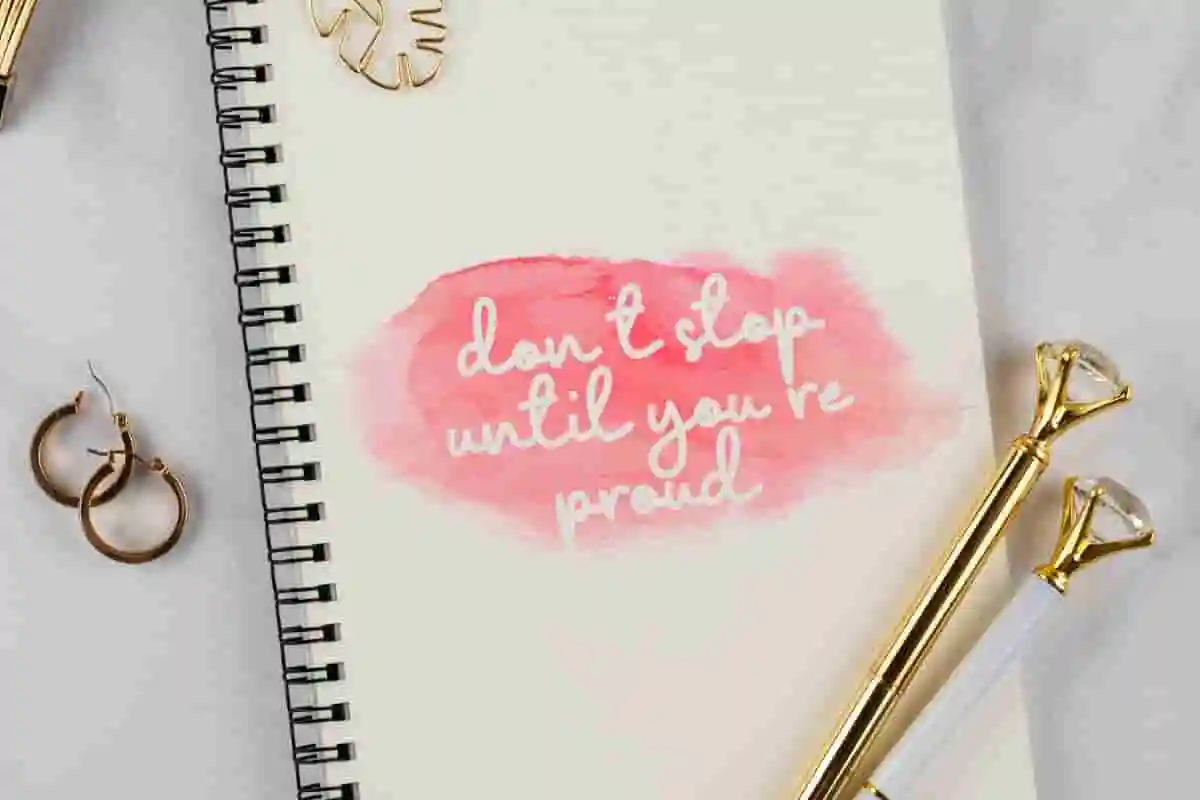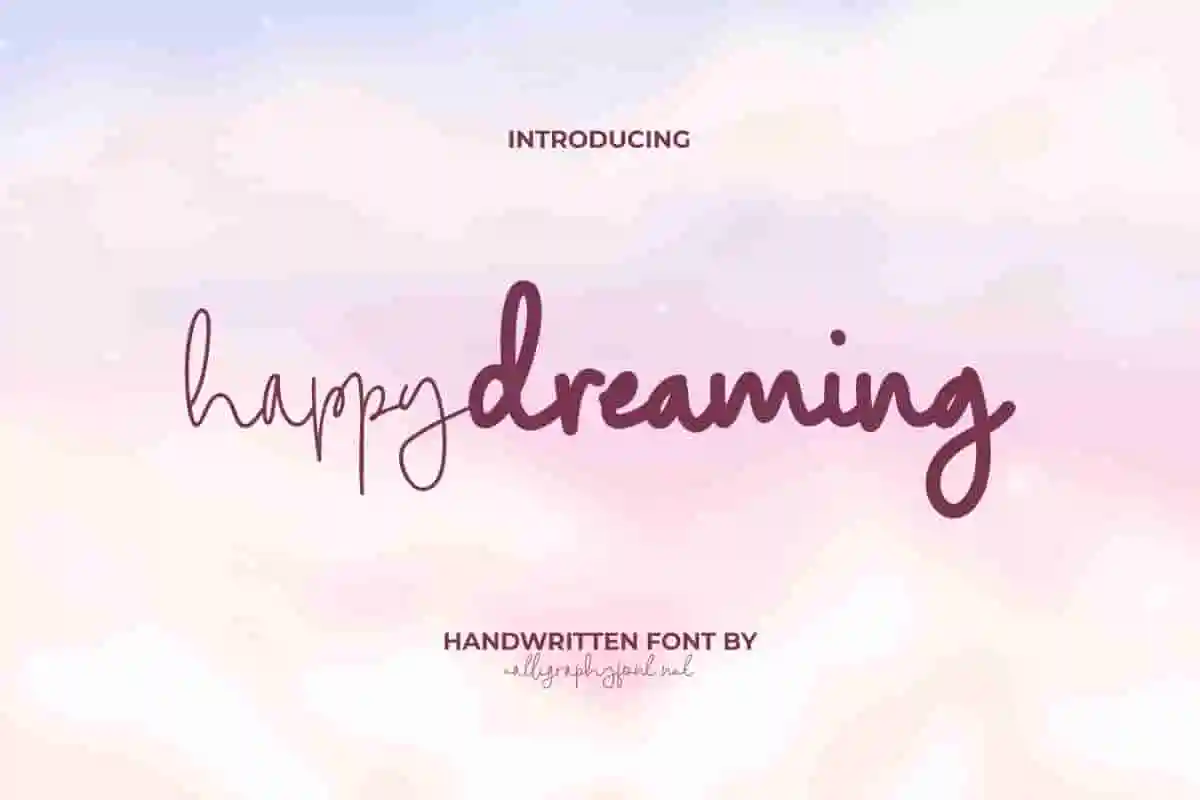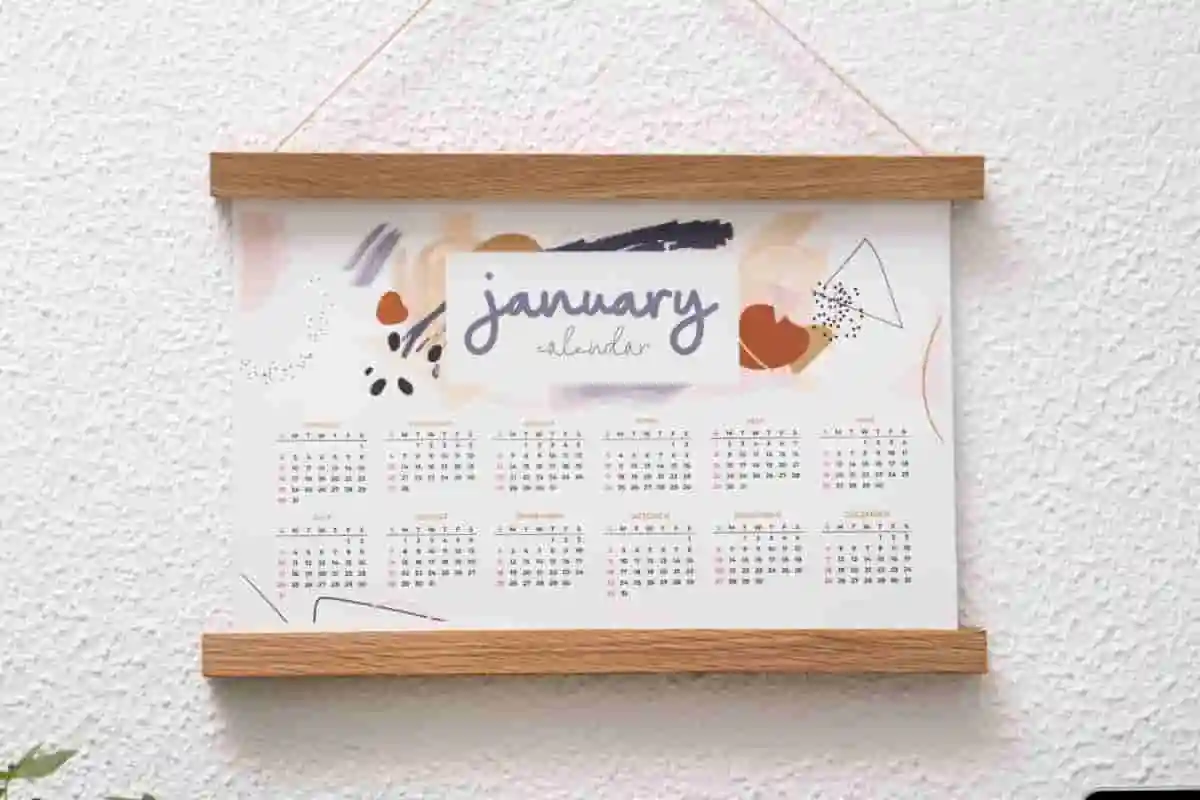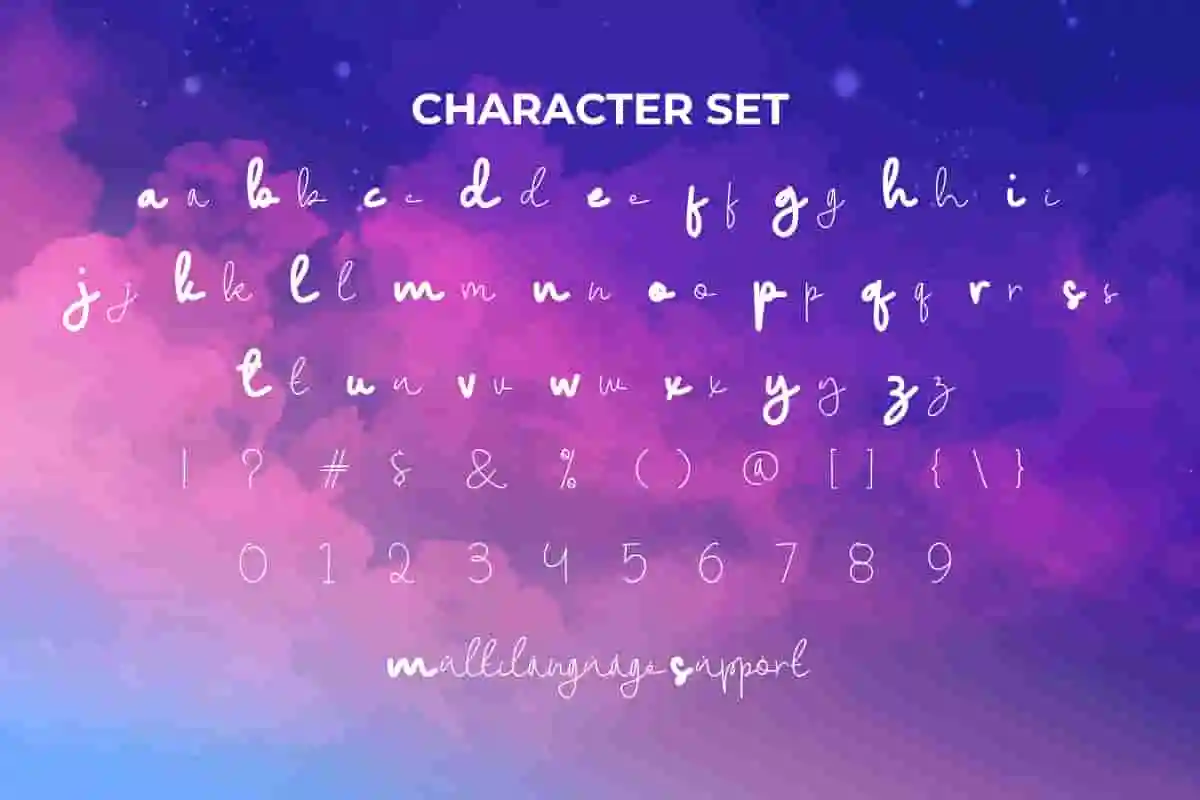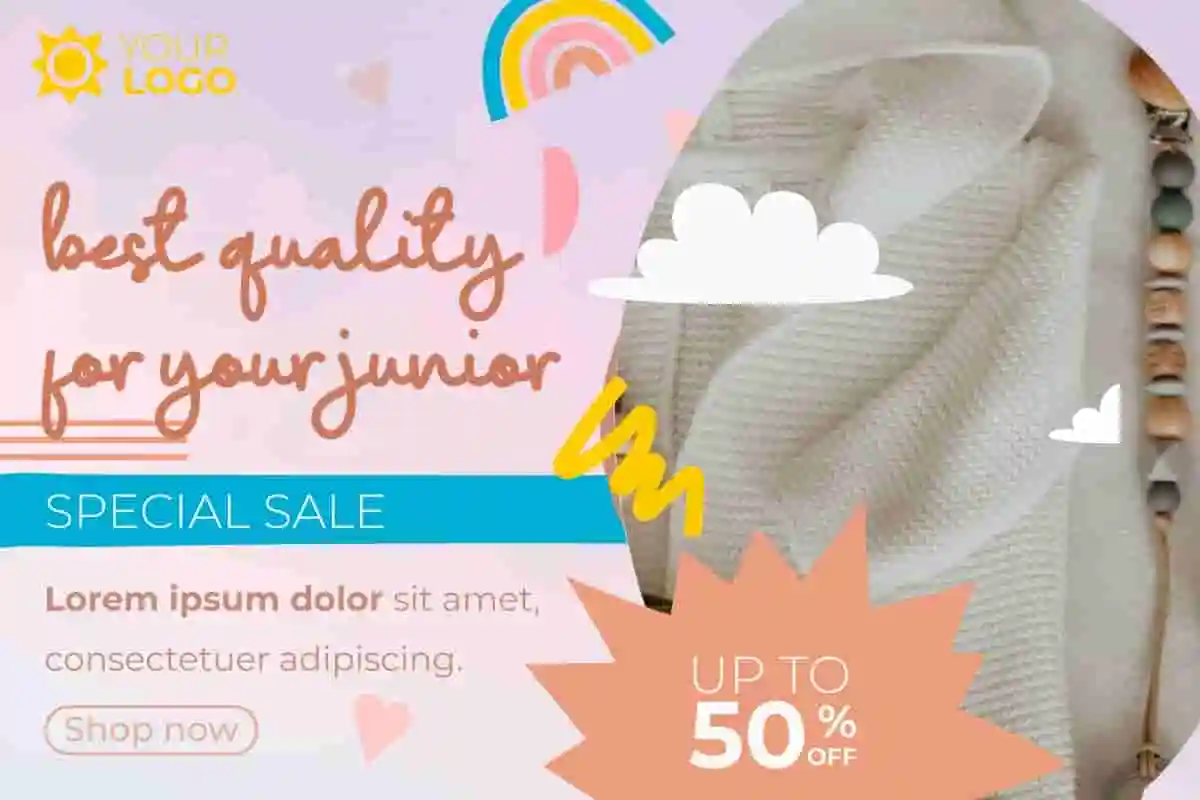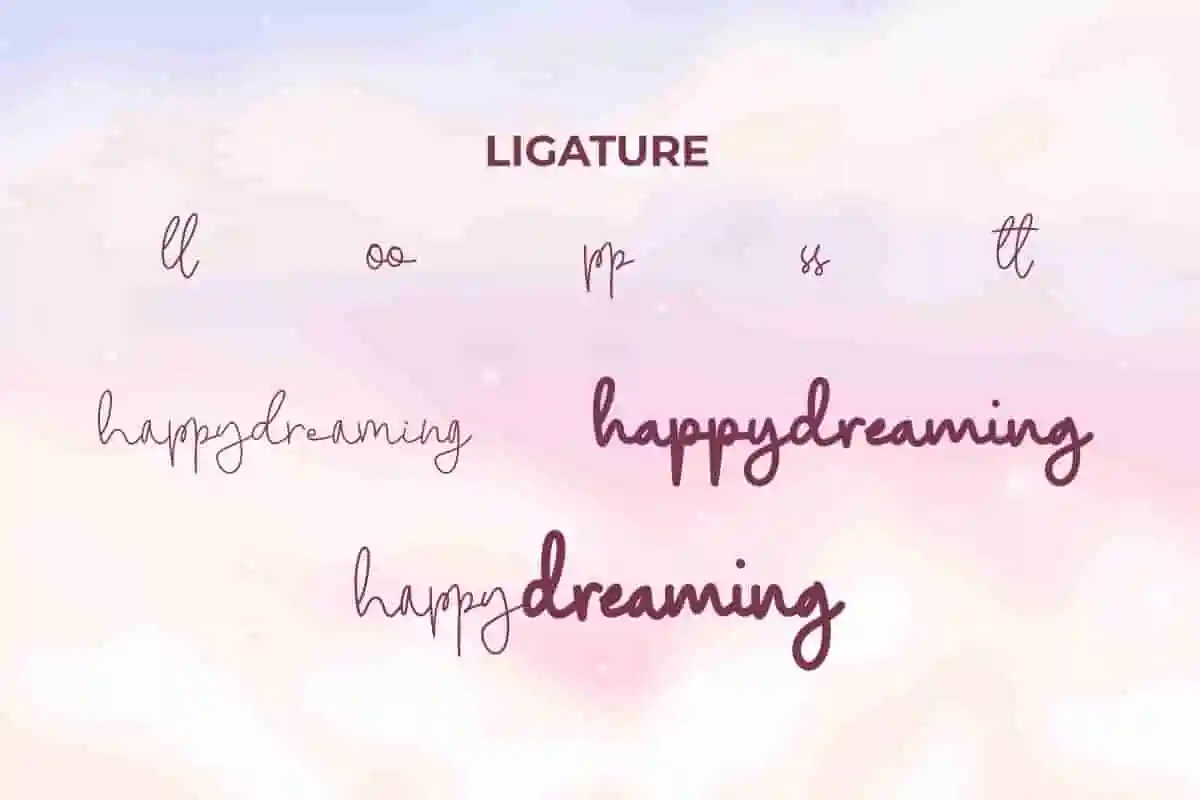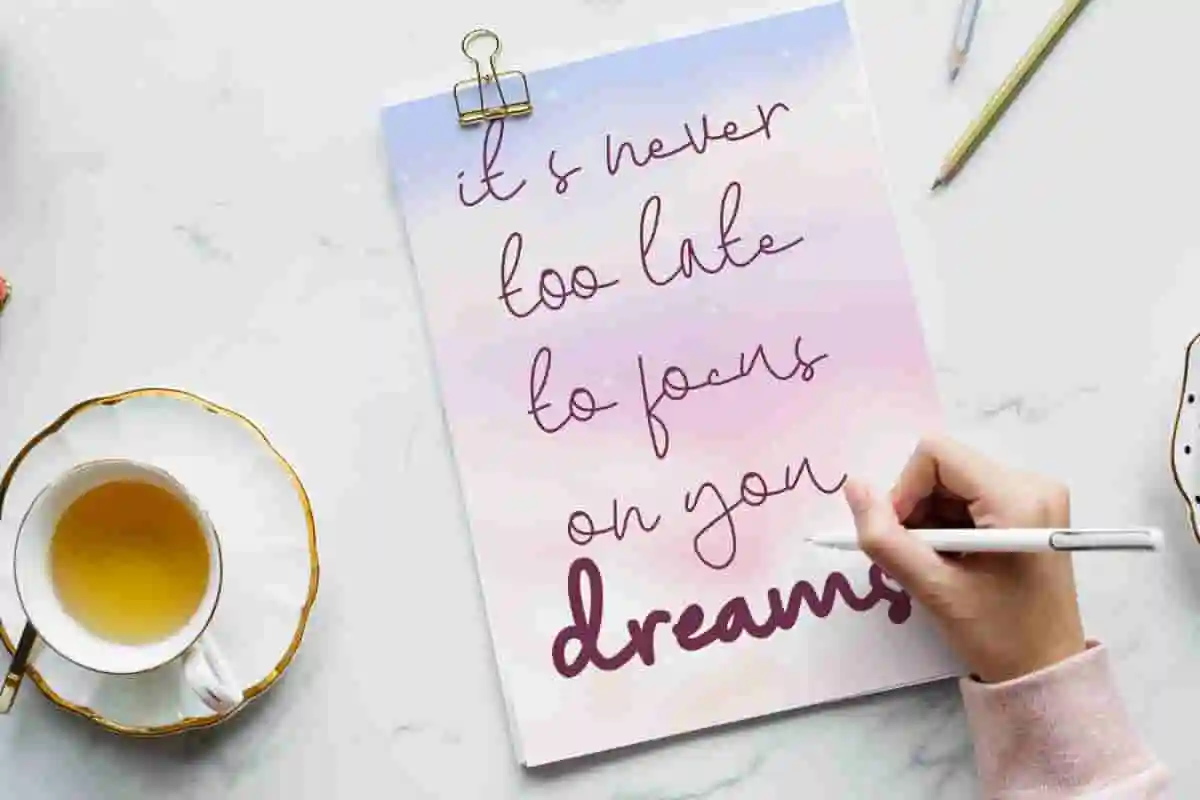
Happy Dreaming
Happy Dreaming Font
Happy Dreaming Font is a cute creative handwriting font with a unique concept that captures the essence of magic, perfect for bringing storybooks to life.
Happy Dreaming Font is a creative handwriting font with a unique concept. This beautiful and fun font uses lowercase characters all in different styles combined into one. The two types of brushes used when creating it give it a different look. It can be used together or separately. The font will be suitable for brochure, card designs, flyers, headers, logos, pamphlet, quotes, titles, websites, etc.
Introducing Happy Dreaming Handwriting Font, a playful and enchanting typeface designed to spark joy and imagination in every project. With its smooth curves, cheerful strokes, and dreamy handwritten style, this font is perfect for designers, creatives, and brands who want to infuse positivity and charm into their work.
Whether you’re crafting children’s books, social media posts, greeting cards, invitations, posters, or branding materials, Happy Dreaming Font adds a lighthearted and magical personality to every design. Its unique letterforms radiate warmth, making your words not only easy to read but also visually engaging.
The versatility of Happy Dreaming Font ensures it fits a wide variety of design needs. From fun DIY projects and print-on-demand merchandise to digital graphics and marketing campaigns, this font is your go-to choice for adding a fresh, creative flair. Its whimsical handwritten feel makes it especially perfect for kids-related designs, lifestyle brands, and creative entrepreneurs looking to stand out with authenticity and charm.
Happy Dreaming Handwriting Font is a pretty font designed based on a fantasy and playful theme with added character ligatures. This handwritten font is here to add to your font collection and take your digital images to the next level! Can be used for any industry such as advertising, crafting, graphic design, printing, publishing, school design, writer, and many more.
Happy Dreaming Handwriting Font comes with a complete set of Uppercase and Lowercase Basic Characters, Number, a large range of Punctuation, Symbol, and Ligatures. It has included multilingual character support ready to be used on Windows or Mac machines with a simple installation. It’s tested to work well in the Adobe Apps (Illustrator, Adobe InDesign, Adobe Photoshop) CorelDraw, and others. PUA Encode Characters means you can access all the characters easily – Fully accessible without additional design software.